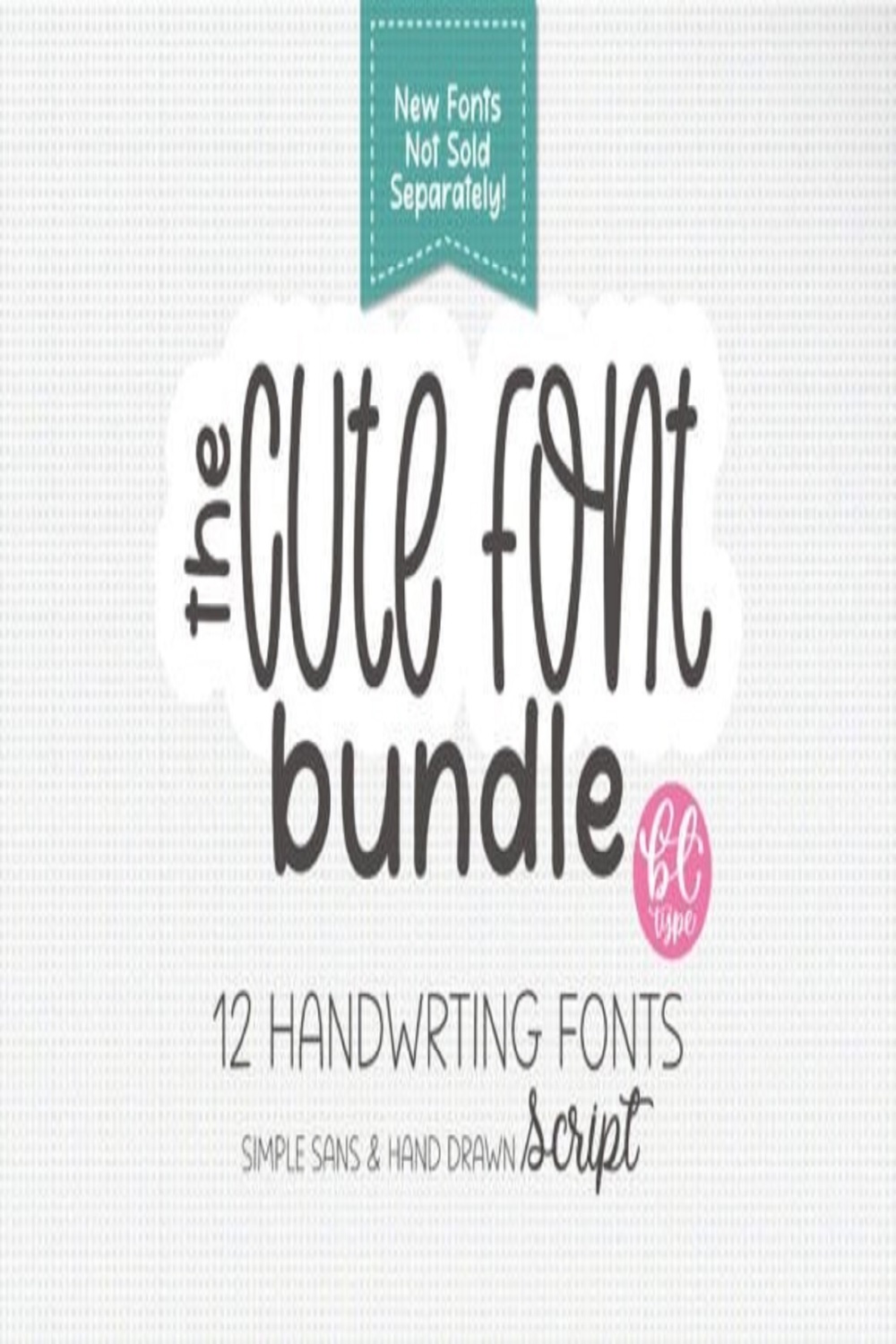
Unleash your creativity with the Cute Handwriting Font Bundle!
This bundle features 12 exclusive handwritten fonts, carefully crafted to add charm and personality to your projects. These fonts are unique and never sold separately! Whether you’re crafting, journaling, or creating digital content, they’re perfect for bringing your ideas to life.